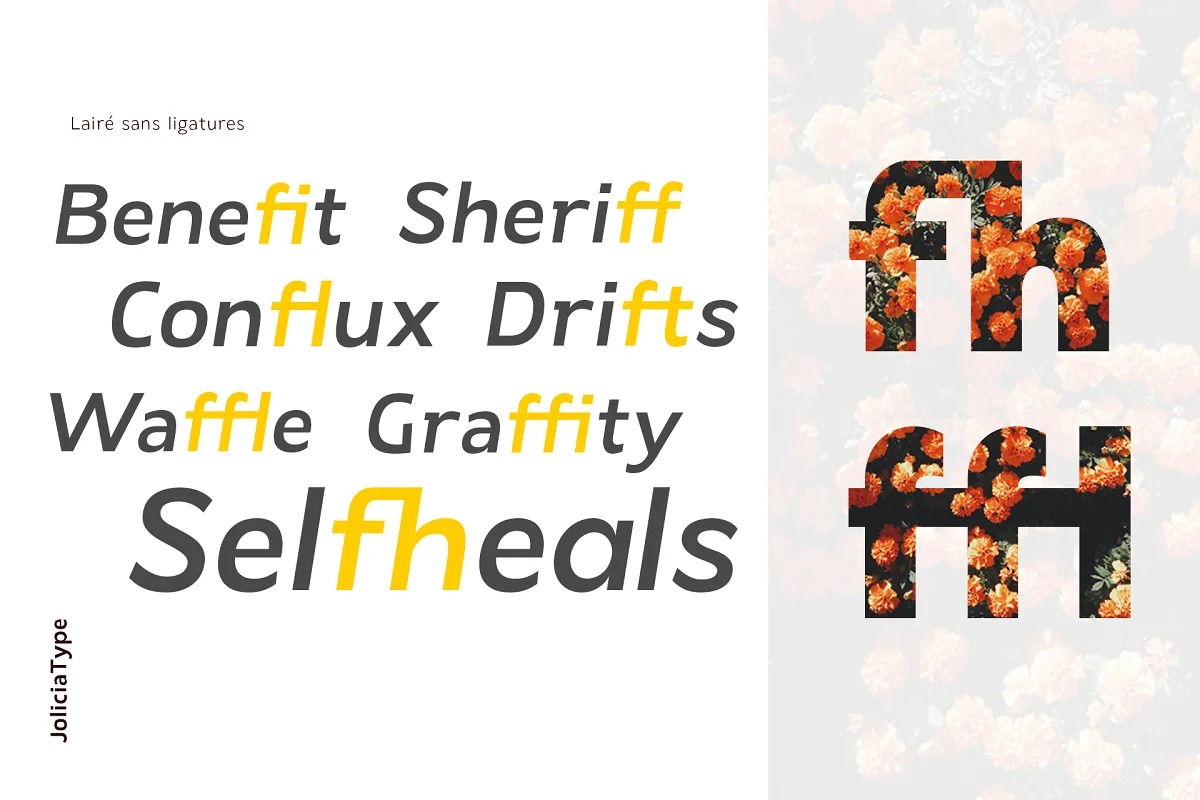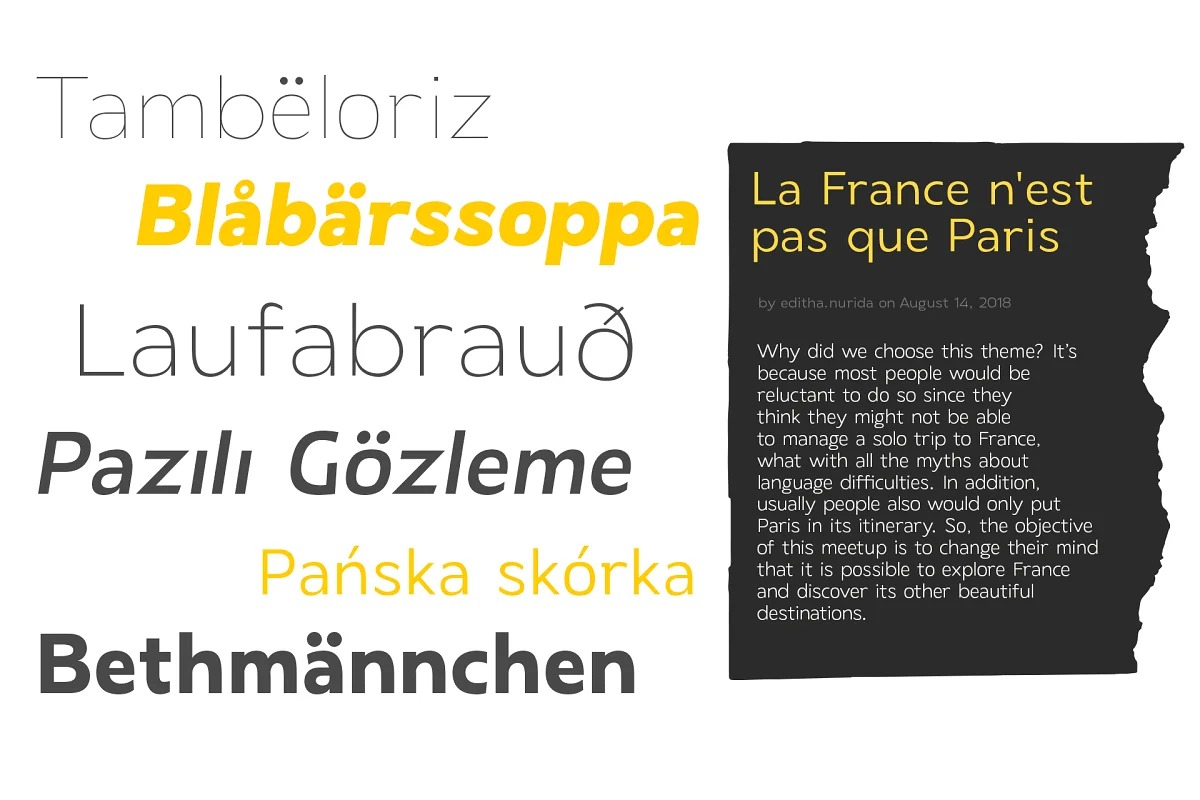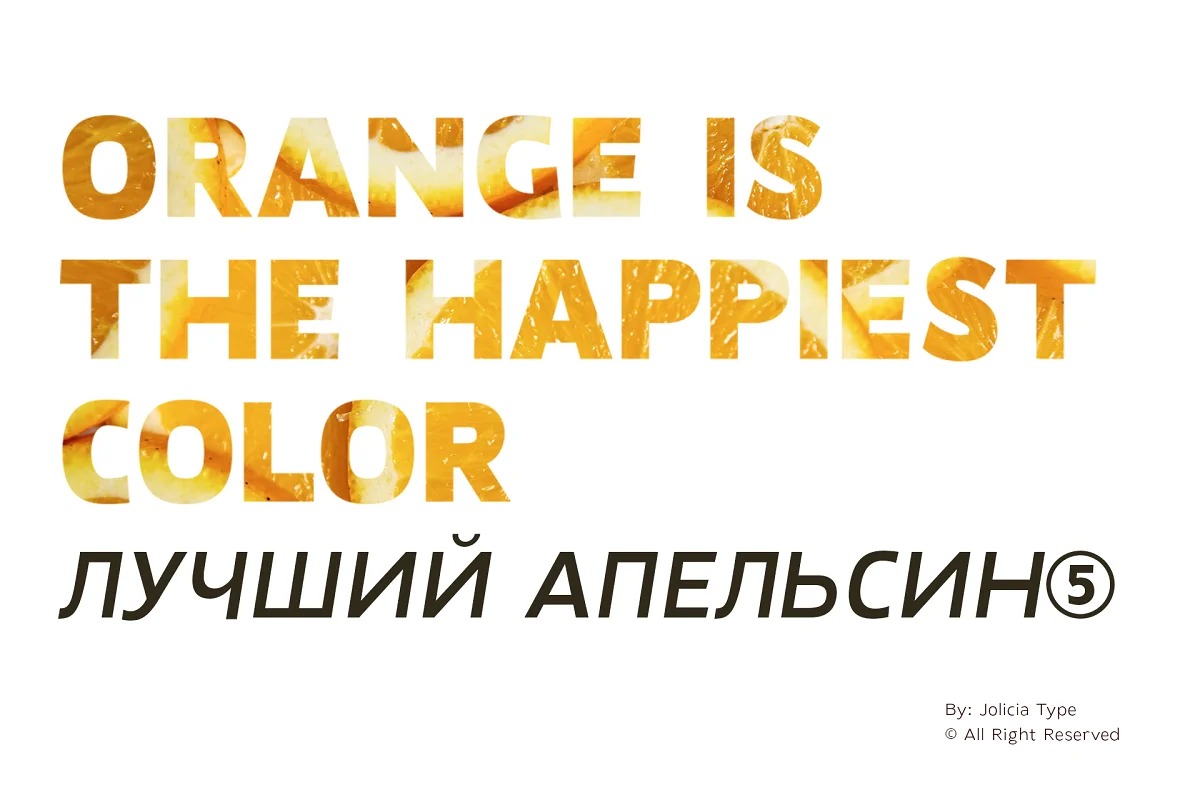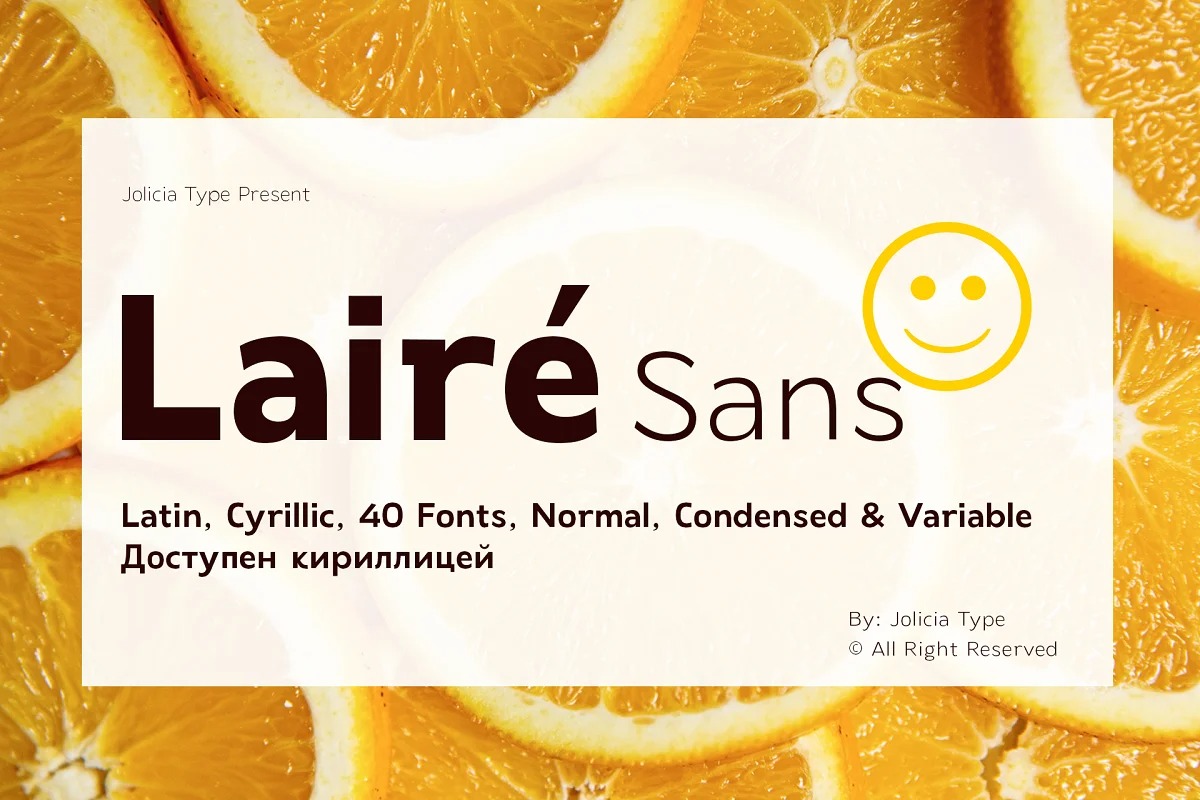
Laire Sans Font
This typeface is an extremely aesthetic font that will warm you up. As well as being suitable for use in every field, Laire will be a good friend in your logo designs. In addition, magazines, brochures, posters will not leave you alone in your work. Laire will represent you well thanks to the round and hot images in the paragraphs.